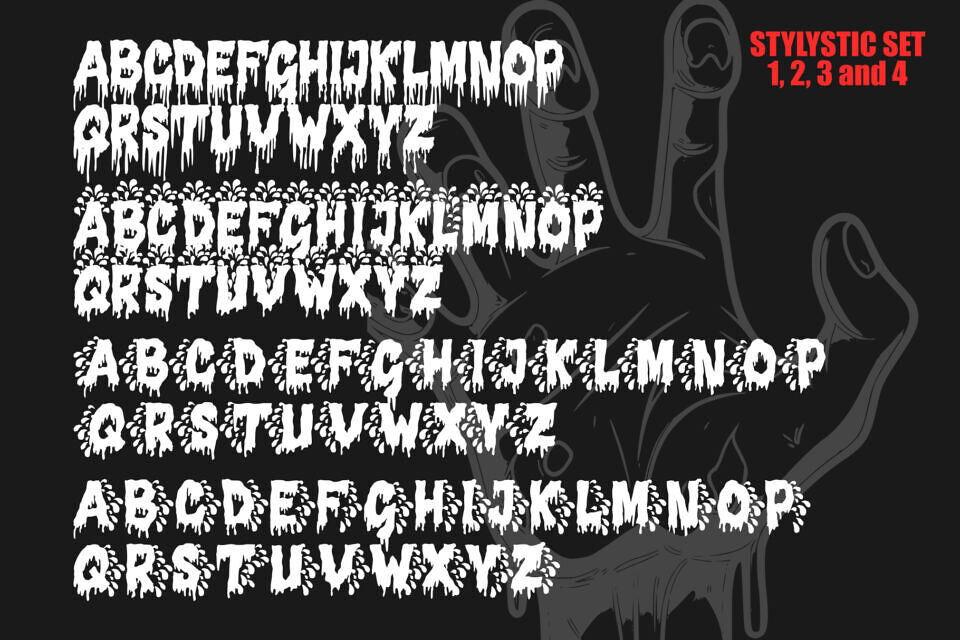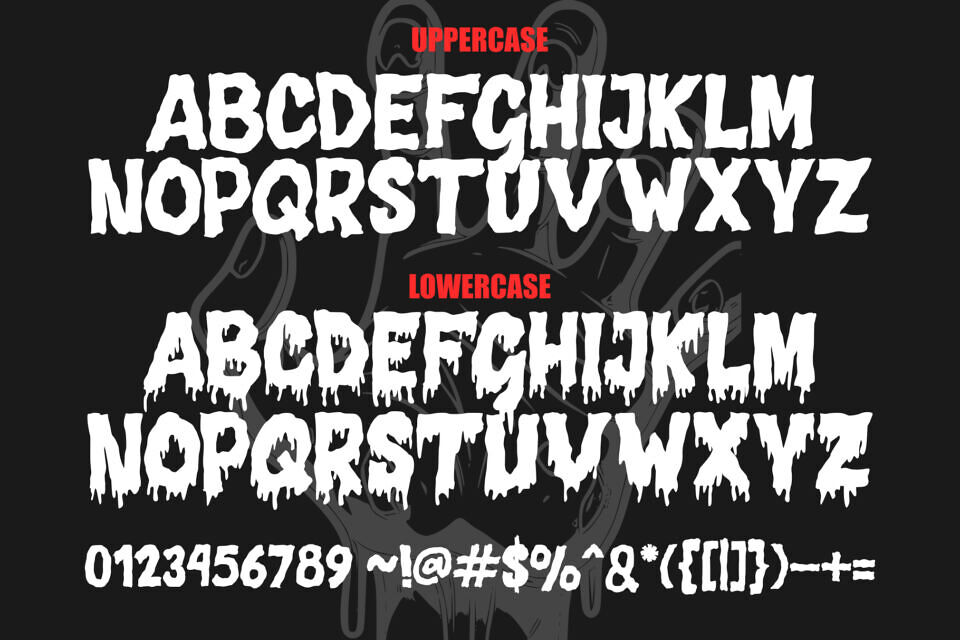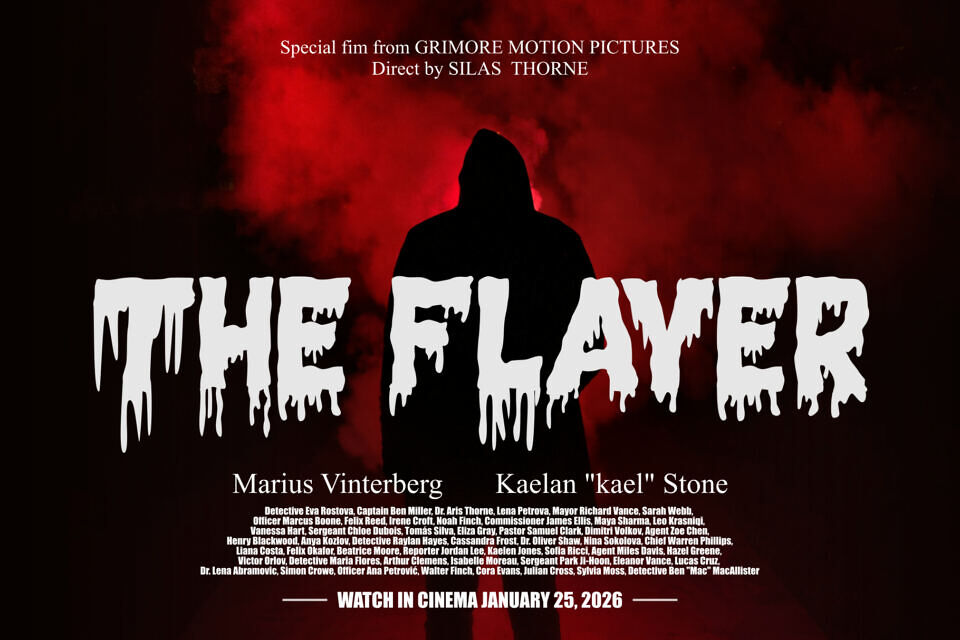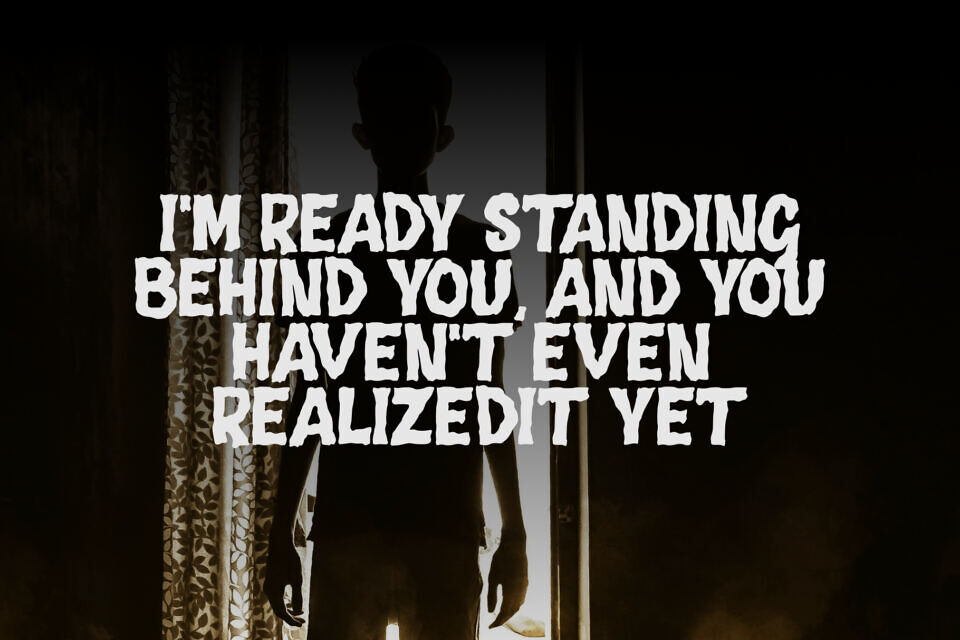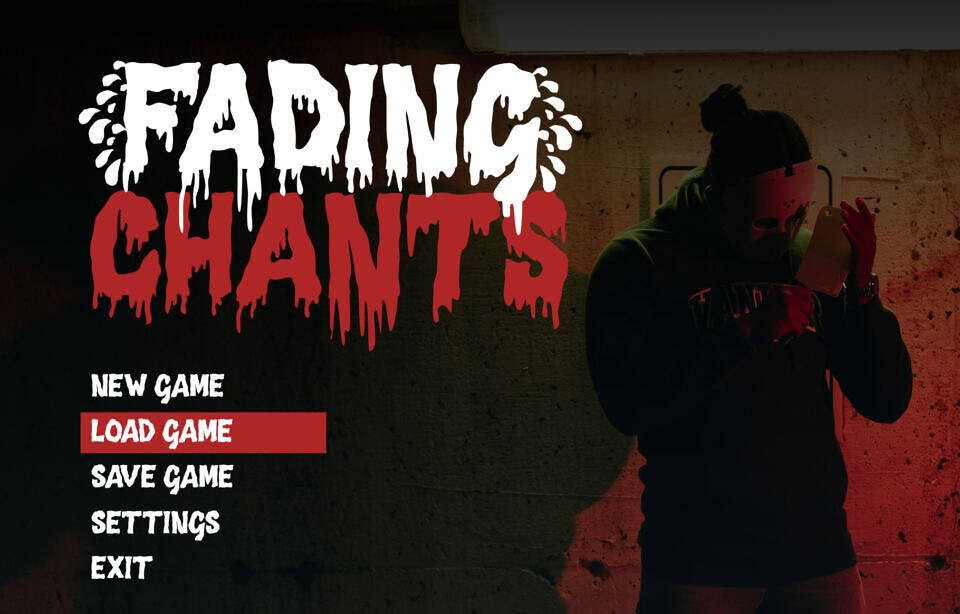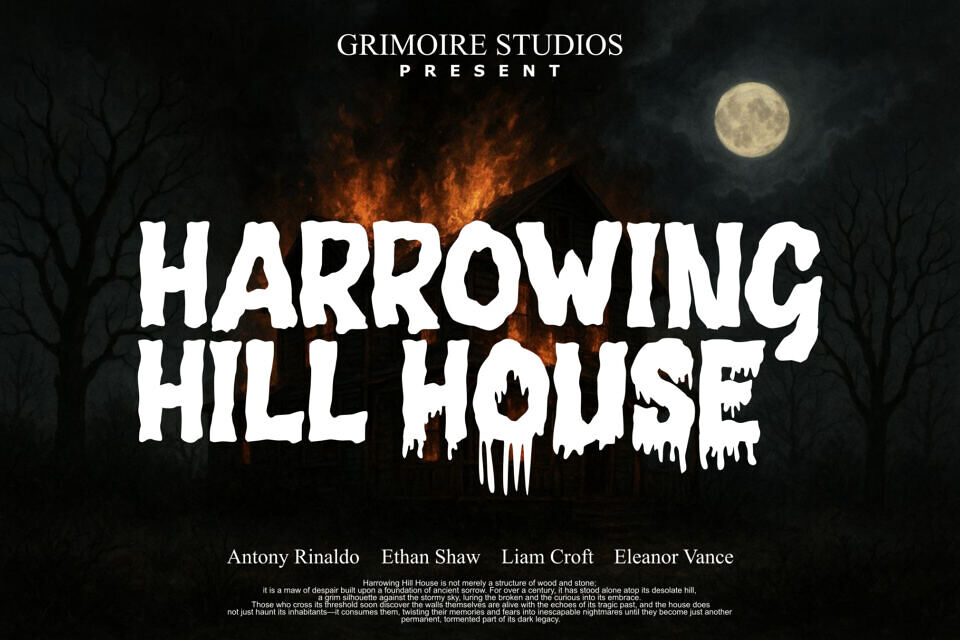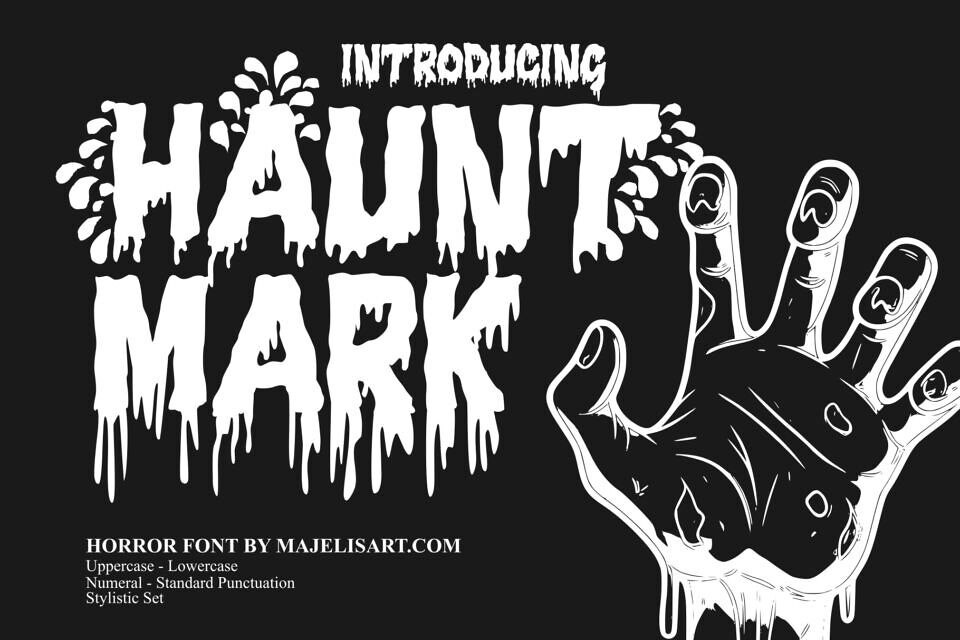
Hauntmark Font
Haunt Mark is a horror-themed font crafted to evoke a chilling, eerie, and mysterious atmosphere. Ideal for horror movie posters, thriller book covers, dark comic titles, Halloween graphics, merchandise, and any design requiring a terrifying touch, it enhances creativity with bold character.
Elevate your spooky projects with this haunting typeface and captivate audiences with its unsettling yet stylish appeal.